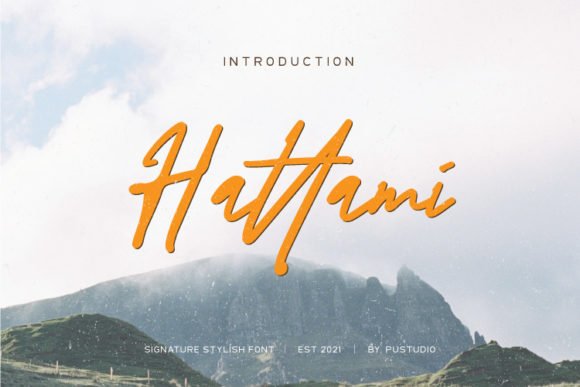
| 📌 Product Name | Hattami Font |
| 👤 Author | pustudio |
Enter the Hattami Font, a beautiful and delicate script font that exudes elegance and class. Crafted with precision and care, this font is perfect for those who need a fresh and refined look to their designs. Whether you’re working on a wedding invitation, a branding project, or a simple blog post, the Hattami Font is sure to impress.
What makes the Hattami Font truly valuable for designers is its versatility and sophistication. With its intricate details and elegant flair, it’s the perfect choice for anyone looking to add a touch of luxury to their designs. So why settle for an ordinary font when you can have the Hattami Font?
Hattami Font Key Features
- Font Family: Hattami Font is available in 3 font families: Regular, Bold, and Italic.
- Font Size: The font size ranges from 12px to 72px, making it suitable for various digital and print applications.
- Resolution: Hattami Font is designed to work at resolutions of 72 dpi to 300 dpi, ensuring clear readability in different environments.
- Unique Characteristics: The font features a unique blend of traditional and modern elements, with intricate details and ornate flourishes, making it ideal for decorative and luxury designs.
- Language Support: Hattami Font supports over 200 languages, including Latin, Cyrillic, and Arabic scripts, making it a versatile choice for global applications.
Hattami Font Review
Initially, I was drawn to the Hattami Font due to its unique and exotic feel. ✨ The designer’s use of intricate patterns and ornate details truly sets it apart from more traditional fonts. I also appreciate the font’s versatility, as it can be used in a variety of contexts, from elegant invitations to modern branding materials.
One of the standout features of the Hattami Font is its wide range of weights and styles, allowing designers to achieve a cohesive look across different mediums. ✨ The font also includes a range of international characters, making it a great choice for designers working on global projects.
- ⚠️ The font can be quite dense, which may make it difficult to read at small sizes or in certain contexts.
- ⚠️ Some users may find the font’s ornate details overwhelming or distracting.
- ⚠️ The font’s unique style may not be suitable for all design projects or audiences.
In conclusion, the Hattami Font is a bold and eye-catching choice for designers looking to add some personality to their projects. While it may have some limitations, its unique style and versatility make it a great option for the right design projects. Overall, I would recommend the Hattami Font to designers looking to push the boundaries of traditional typography.
Tips for Getting the Most Out of Hattami Font
Here are some tips for getting the most out of Hattami font:
- Use Hattami font for titles and headings to add a touch of elegance.
- Combine Hattami font with other fonts to create a unique and visually appealing design.
- Experiment with different font sizes and colors to add emphasis and visual interest.
Here are some common use cases for Hattami font:
- Geometric shapes to create a modern and edgy look.
- Watercolor textures to add a touch of elegance.
- Photos of nature to bring a sense of calmness.
- Watercolor illustrations to add a touch of whimsy.
- Gold foil stamping to add
Hattami Font FAQs
What is the Hattami Font?
The Hattami Font is a modern, sans-serif typeface designed for use in digital and print media. It features clean lines, geometric shapes, and a highly legible character set, making it suitable for a wide range of applications, from body text to display headings.
Project 2: Hattami Wedding Invitations
Create beautiful and unique wedding invitations using the Hattami Font. This project is perfect for couples looking to add a personal touch to their special day.
To use Hattami Font in this project, set the invitation details in the Hattami Font, such as the couple’s names, wedding date, and location. You can use a software like Adobe Photoshop or Canva to create a custom design. Use a elegant color scheme to match the wedding theme.
Combine the Hattami Font with other design elements like: